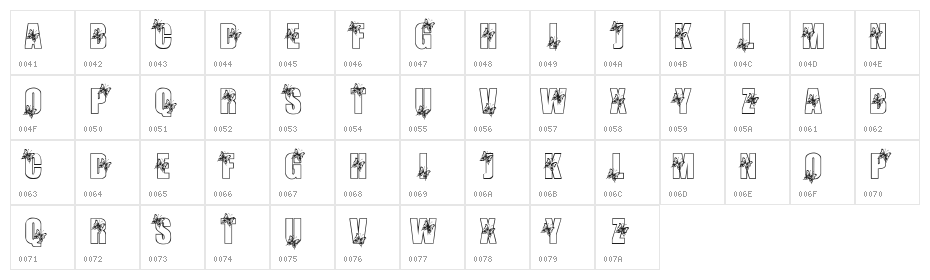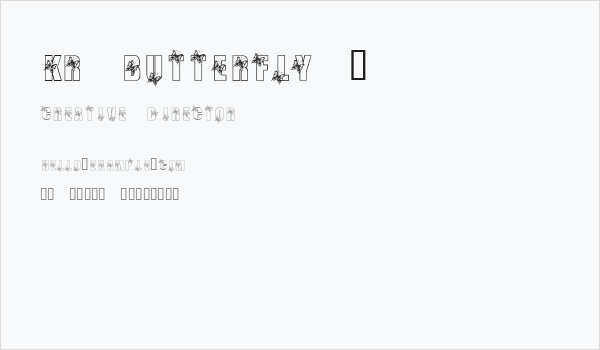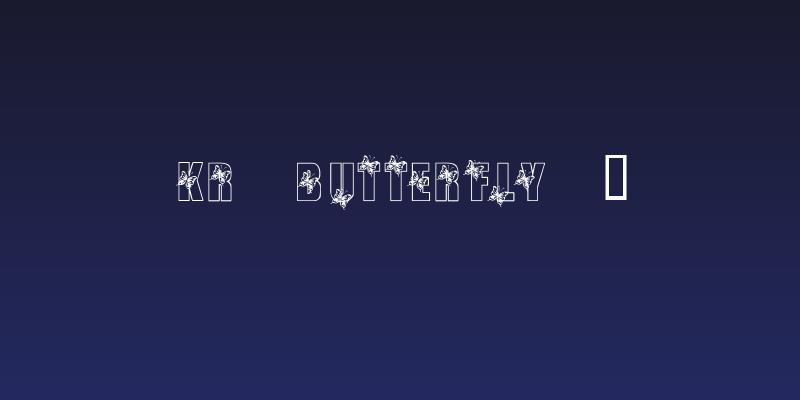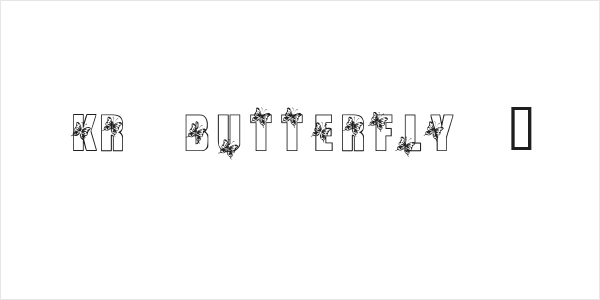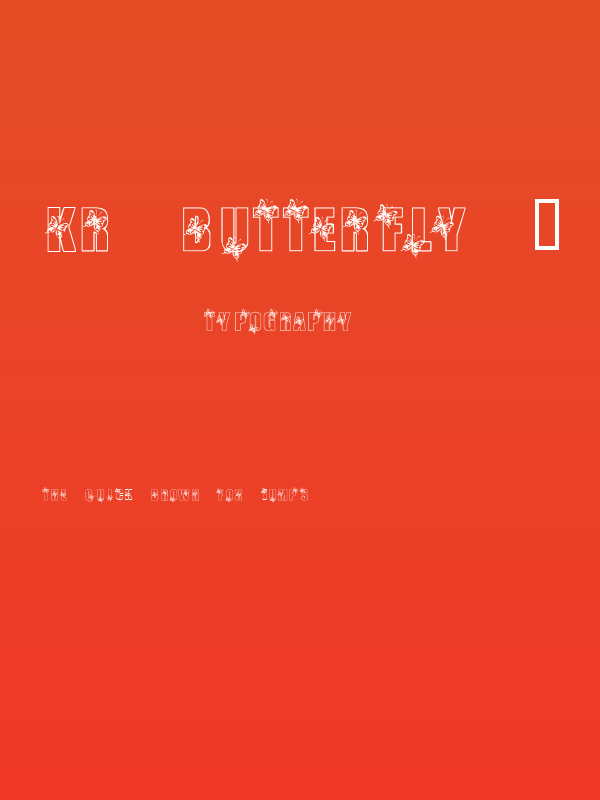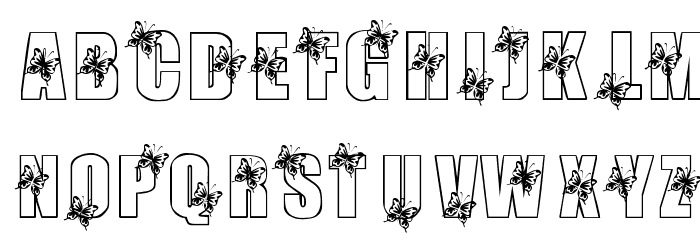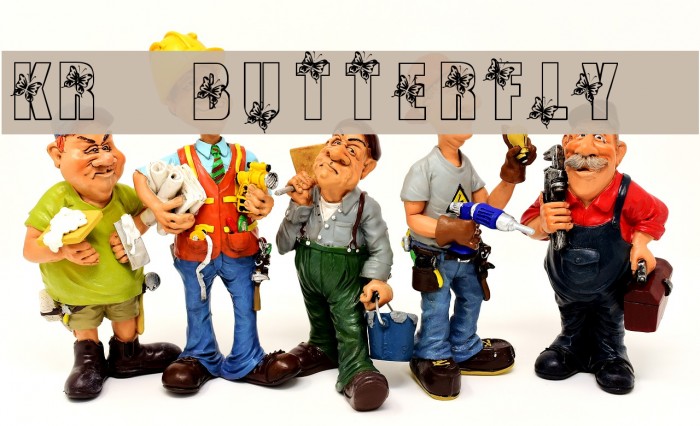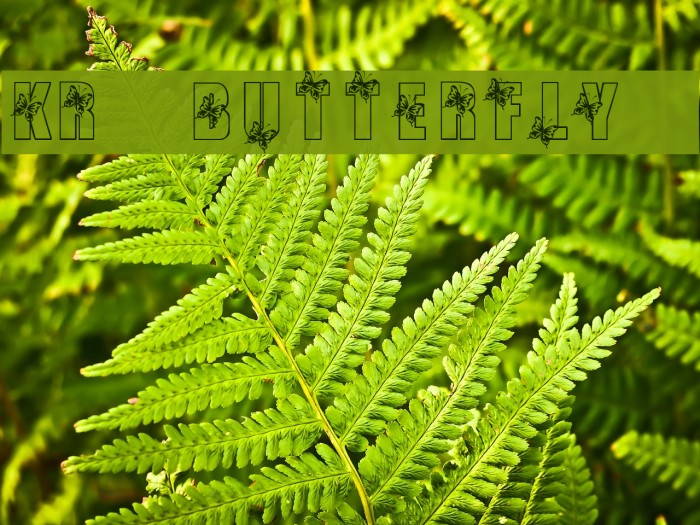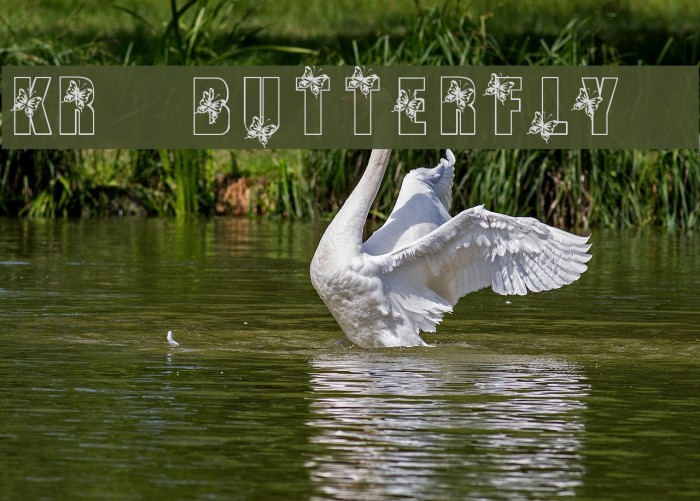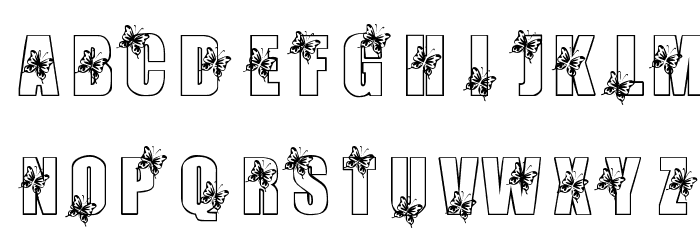
KR Butterfly 3 Font
This decorative font features bold, uppercase letters adorned with intricate butterfly illustrations. Each character is outlined with a thick, black stroke, providing a striking contrast against the delicate butterfly designs that embellish the letters. The butterflies are integrated seamlessly, adding a whimsical and artistic touch to the overall appearance. The font maintains a consistent size and shape across all characters, ensuring uniformity while allowing the butterfly motifs to stand out. This unique blend of bold typography and detailed artwork makes it ideal for creative projects that require a touch of elegance and nature-inspired aesthetics.